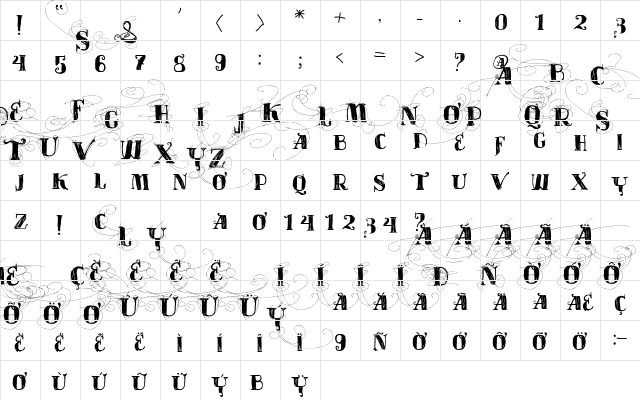
Vtks Velhos Tempos Regular Font Preview
Vtks Velhos Tempos Regular
Vtks Velhos Tempos Regular Font Details
| Foundry | douglas vitkauskas |
| Designer | douglas vitkauskas |
Design Context for Vtks Velhos Tempos Typeface
Vtks Velhos Tempos is a composed and adaptable typeface that performs quietly and consistently across a wide range of design contexts.